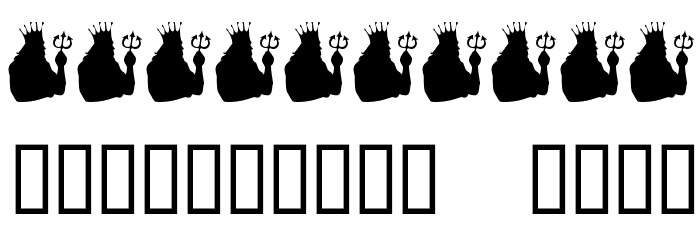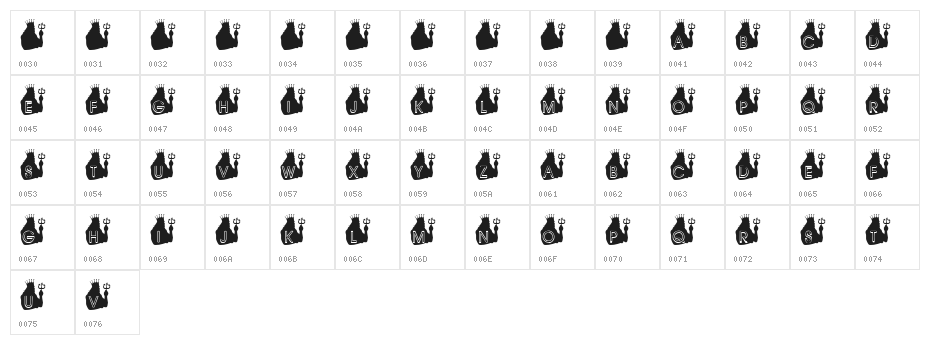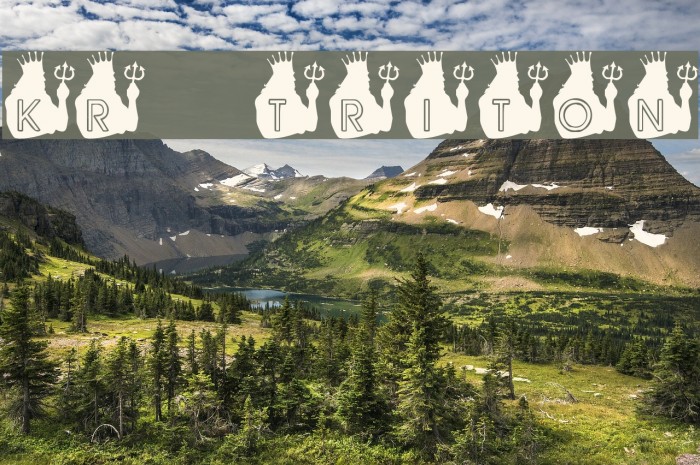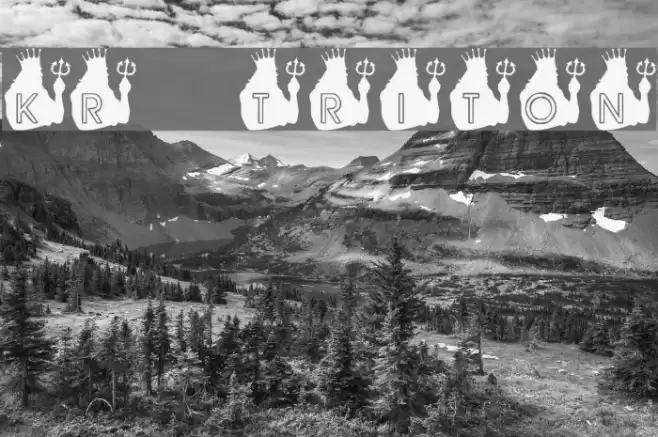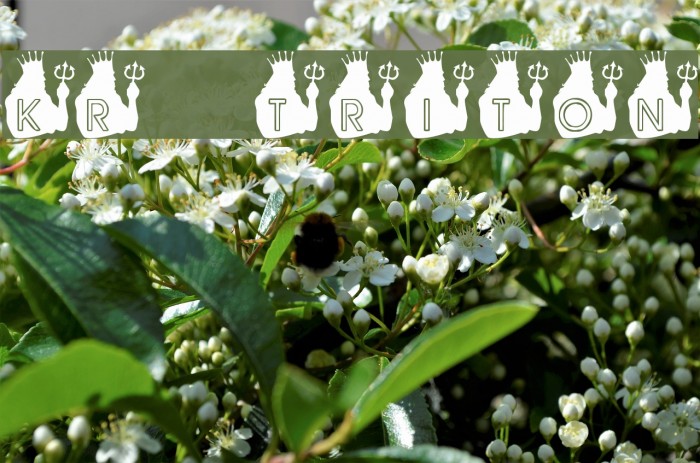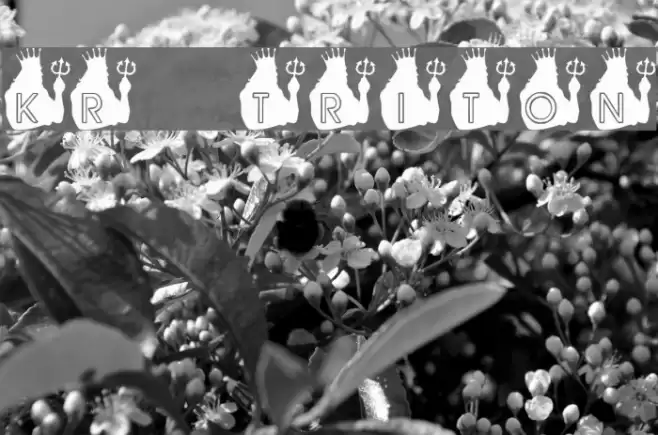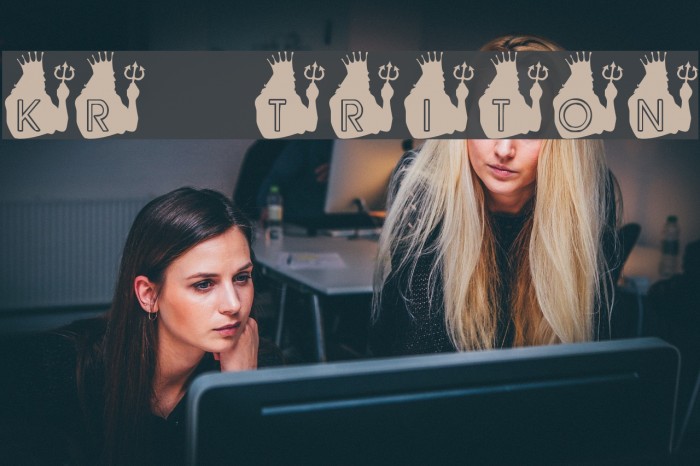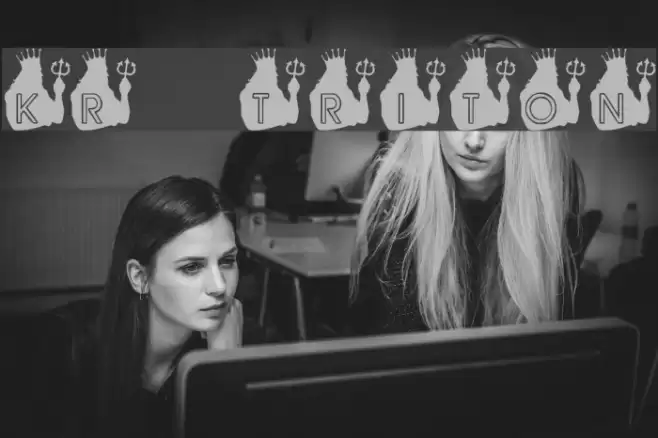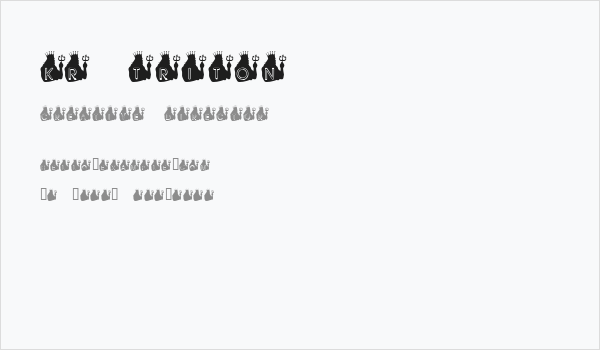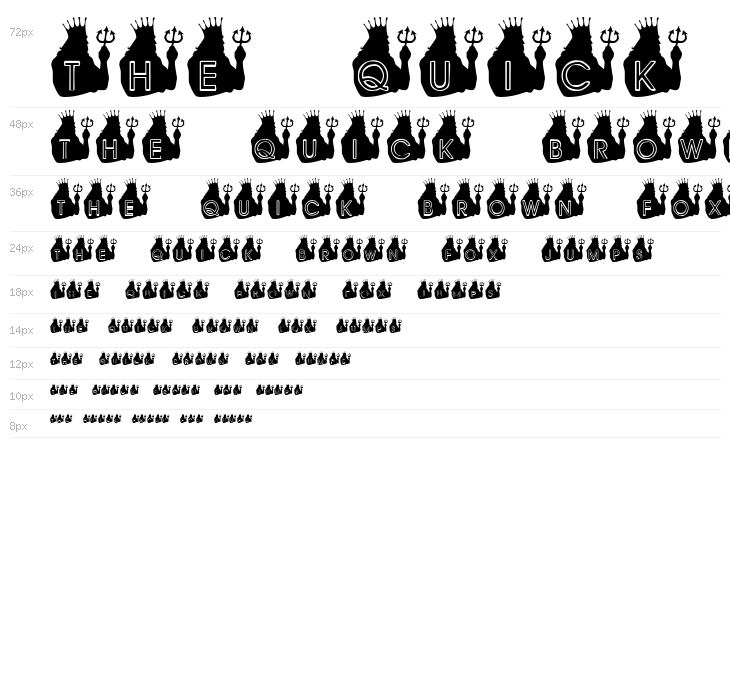
KR Triton Font
KR Triton Description
This font features a unique and playful design where each character is accompanied by a silhouette of a creature holding a trident. The letters are bold and outlined, creating a striking contrast against the solid black figures. The style is highly decorative, making it suitable for creative and whimsical projects. The uppercase letters are prominently displayed, and the font lacks lowercase and numerical characters, focusing instead on its distinctive visual theme.
| Proposed Projects | Ideal for fantasy-themed posters, children's book covers, or playful branding materials. |